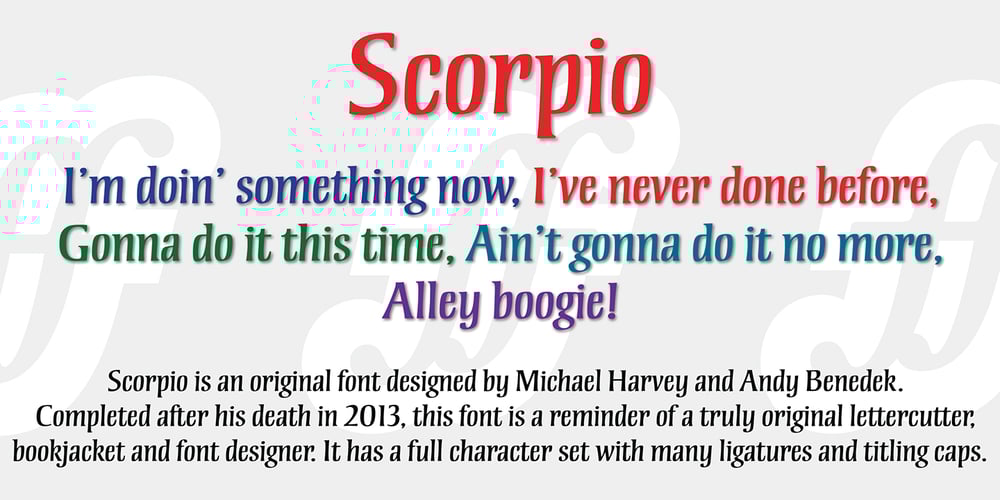
Scorpio Font Family was designed by Michael Harvey, Andy Benedek and published by Fine Fonts. Scorpio contains 1 styles and family package options. Scorpio is a font based on lettering Michael Harvey drew for the card “The Sign of The Nudge” which was designed in collaboration with the concrete poet, Ian Hamilton Finlay. The purpose of the card was to prompt those owing monies to IHF, into paying promptly. Michael also used it on some of the many book jackets he designed. As such, it is a condensed design necessary to enable a lot of text to be fitted with a restricted space. Scorpio has both style and verve. It was designed to attract the attention of potential purchasers browsing the shelfs in bookshops. In fulfilling this rôle, it succeeded admirably. In all these respects, it is unquestionably a unique Michael Harvey design. When Michael died in 2013, this font existed as a drawing of the basic upper and lower case letterforms plus numerals. Andy Benedek’s contribution to Scorpio was to digitise the existing letterforms and then create the remaining characters necessary for a modern font.